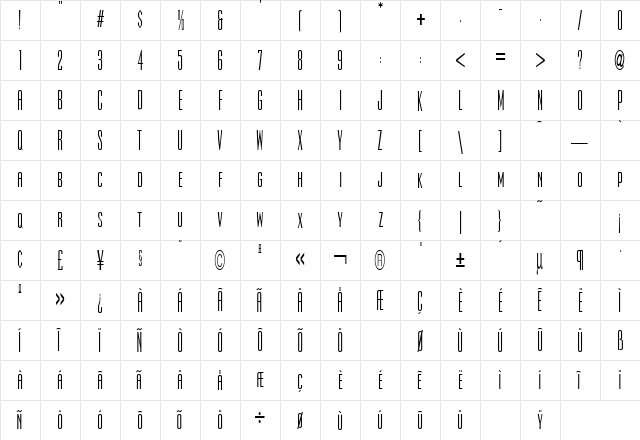
Ultra Condensed Sans One Regular
Design Context for Ultra Condensed Sans One Typeface
Ultra Condensed Sans One offers clean, dependable letterforms without strong stylistic allegiance, making it a practical choice for designers who need flexibility. Its narrow stance lets it pack a punch even in space-constrained designs.